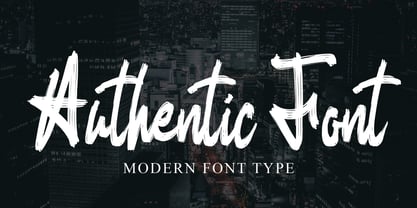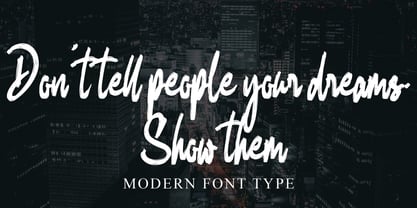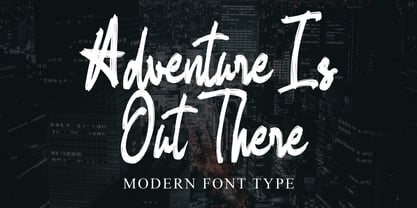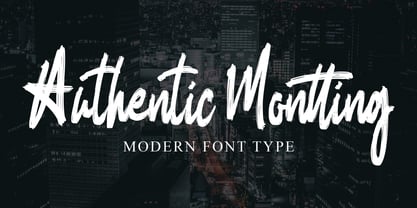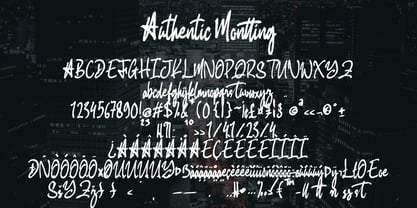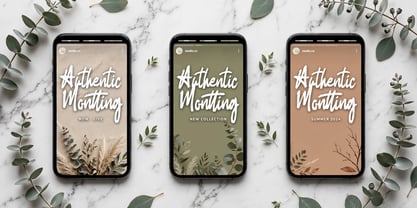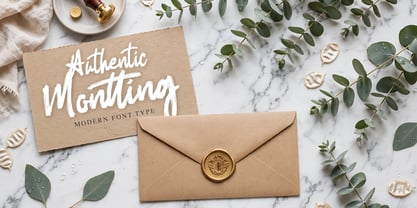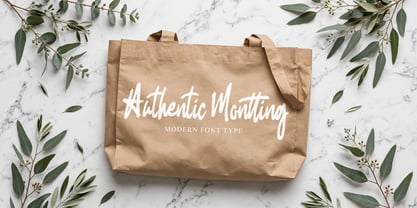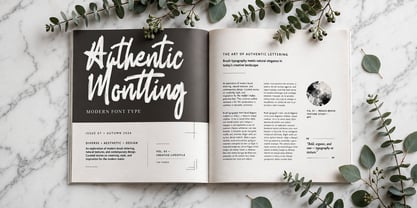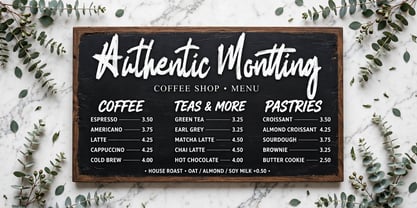
Authentic Montting
by Ayska
The Authentic Montting Font Family was designed by Dhoni Trihatmoko and published by Ayska. Authentic Montting contains 1 styles. More about this family
Authentic Montting, a distinctly modern and casually stylish handwritten font, stands ready to enhance your creative endeavors with seamless grace. Whether it's fortifying dynamic blog posts, reimagining digital planners, infusing heartfelt invitations with personal flair, or making greeting cards delightful, Authentic Montting adapts effortlessly. Furthermore, whether imbuing detailed organizers with character, personalizing treasured photo albums, or lending an inventive touch to decorations, this versatile typeface elevates your digital craft. Designed with a discerning eye for sophistication, Authentic Montting transcends the look and feel of your online visuals, morphing them from common to extraordinary, injecting a uniquely bespoke charm that's indeed yours. Dive deep into your imagination and make bold, unforgettable statements. Let Authentic Montting spin your digital inspirations into tangible masterpieces.
Designers: Dhoni Trihatmoko
Foundry: Ayska